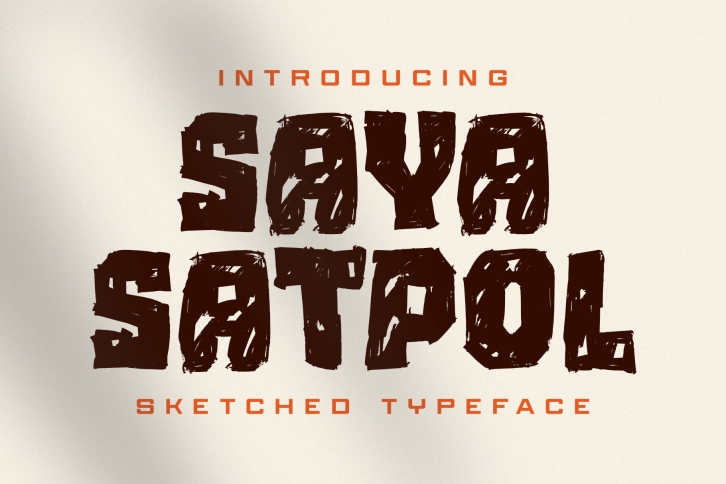
Saya Satpol is a cool, bold and sketched display font, that can be used for all chalkboard quotes or teaching material! Its authentic look will add a personal and realistic feel to your designs.